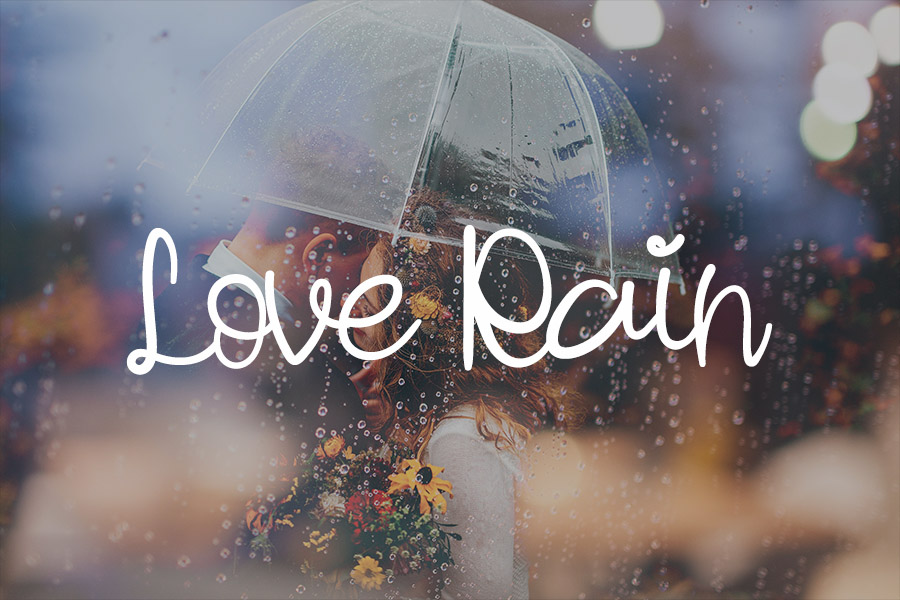
Highway Romantic Font
Highway Romantic Script Font
This is a beautiful and refined script font. It has a classy, elegant and modern look that can be used for logos, branding, invitations, stationery, wedding designs, social media posts, and much more!